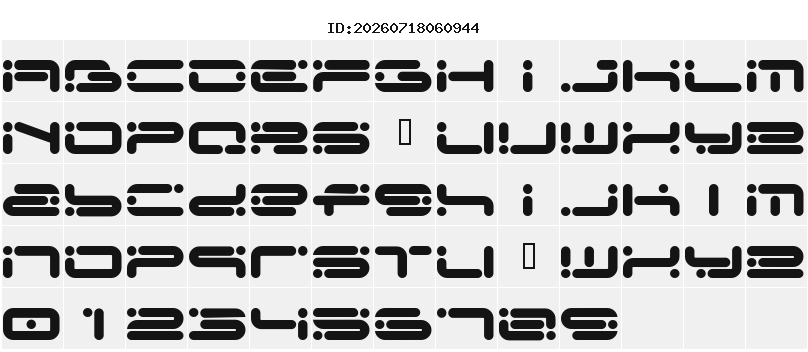
Chicory Preview
• Font Name: Chicory
• Full Font Name: Chicory
About Chicory.ttf
Chicory.ttf is a modern, elegant sans-serif font designed for ultimate readability and visual harmony. Perfect for branding, headlines, web design, and print materials.